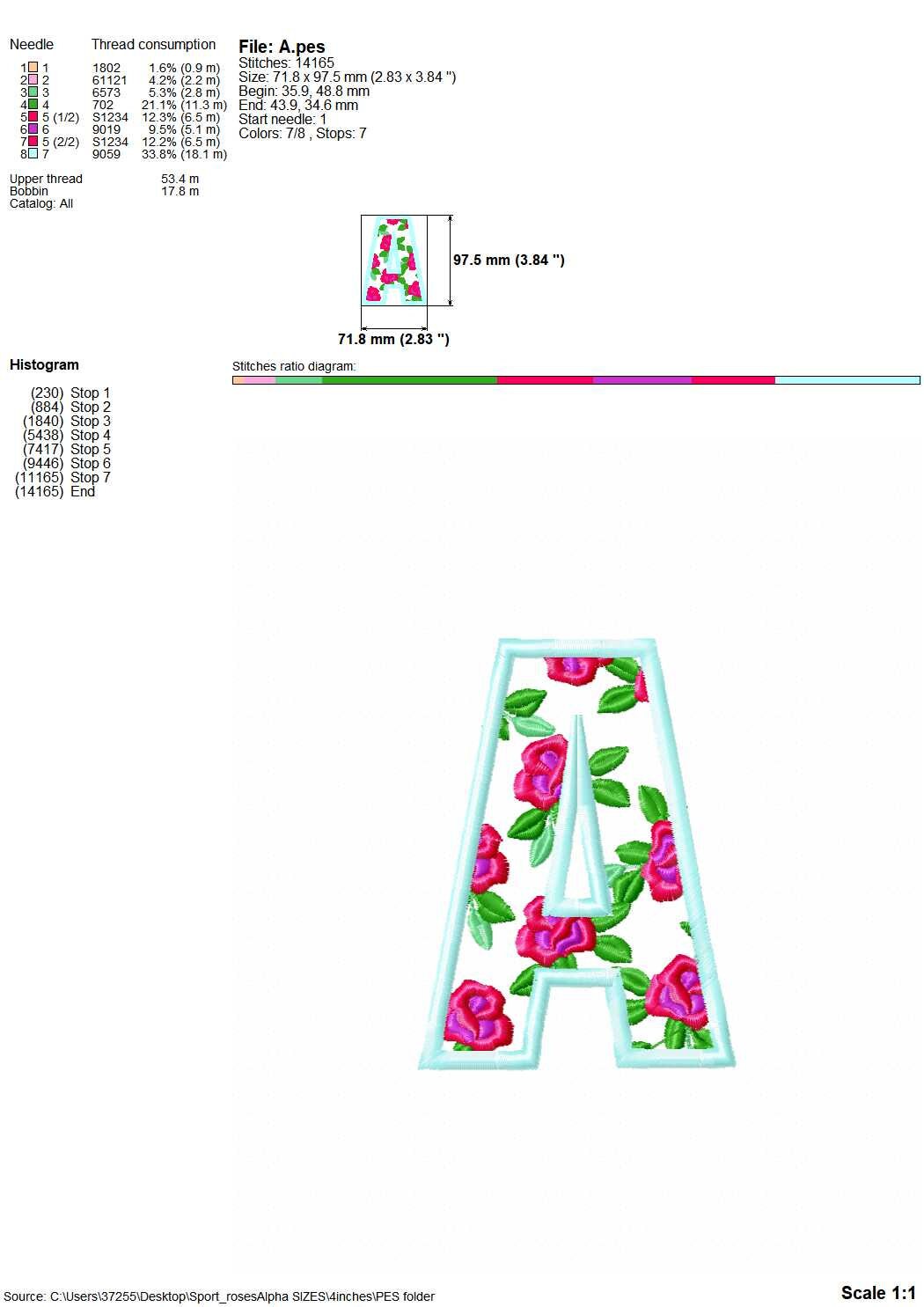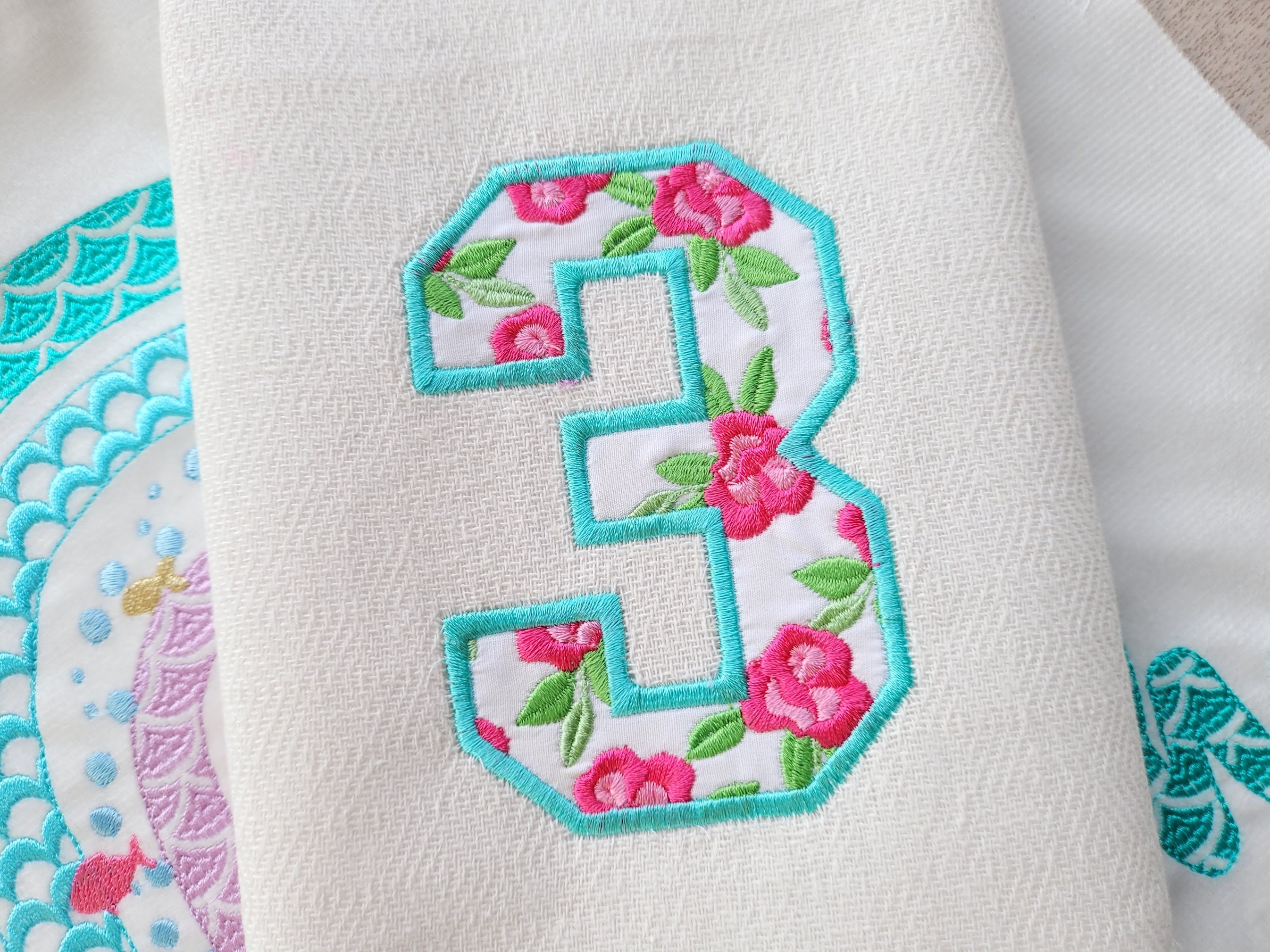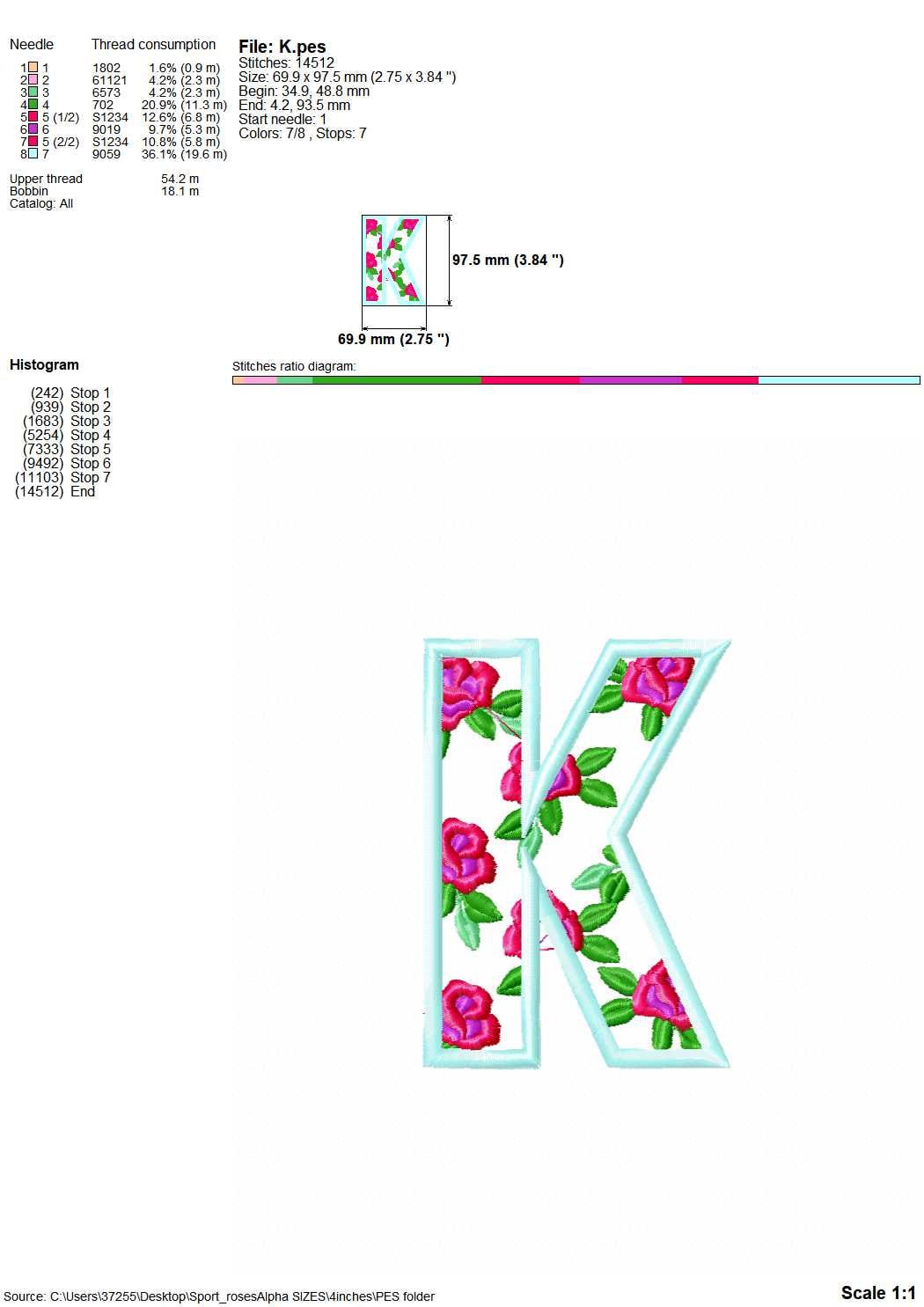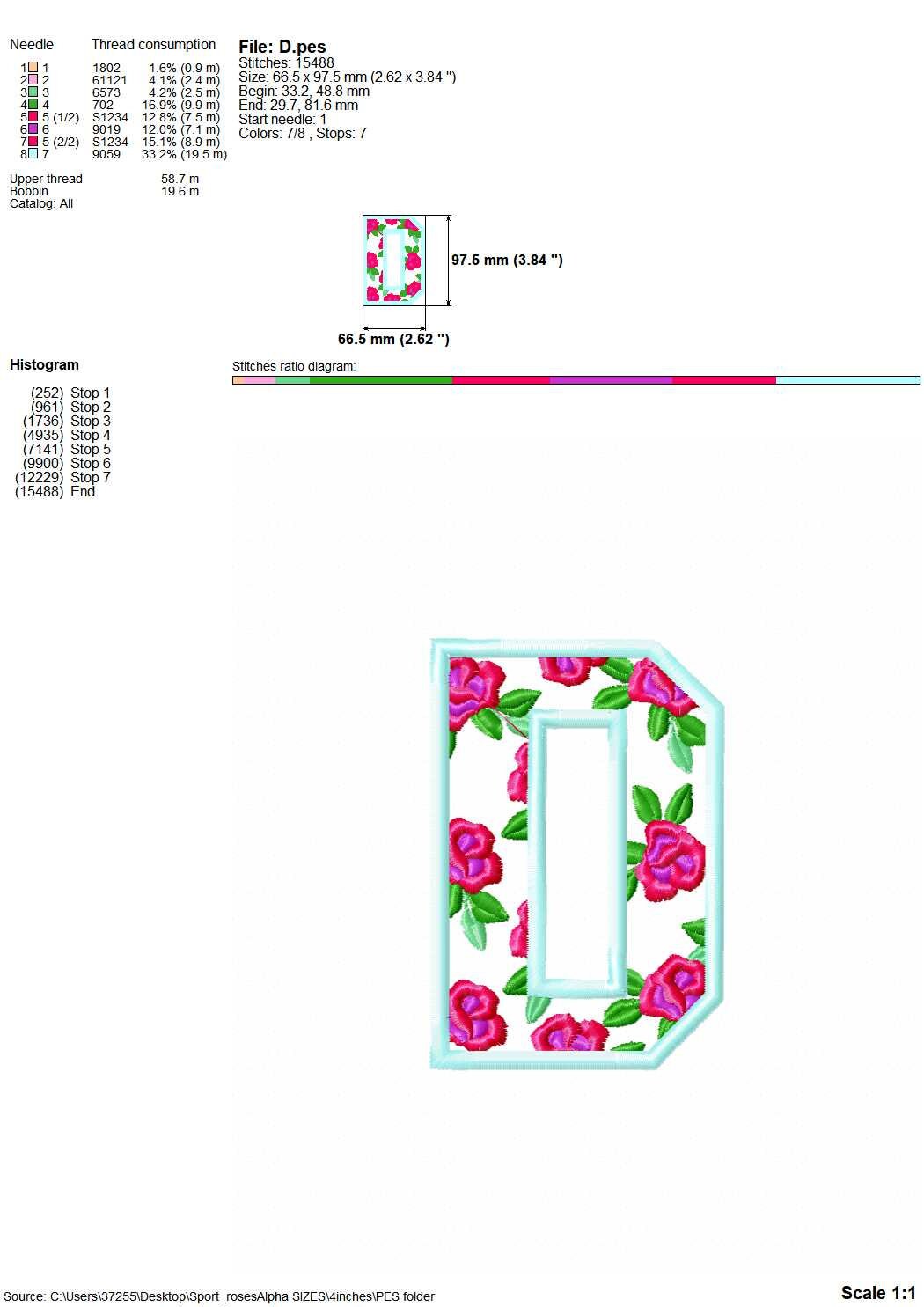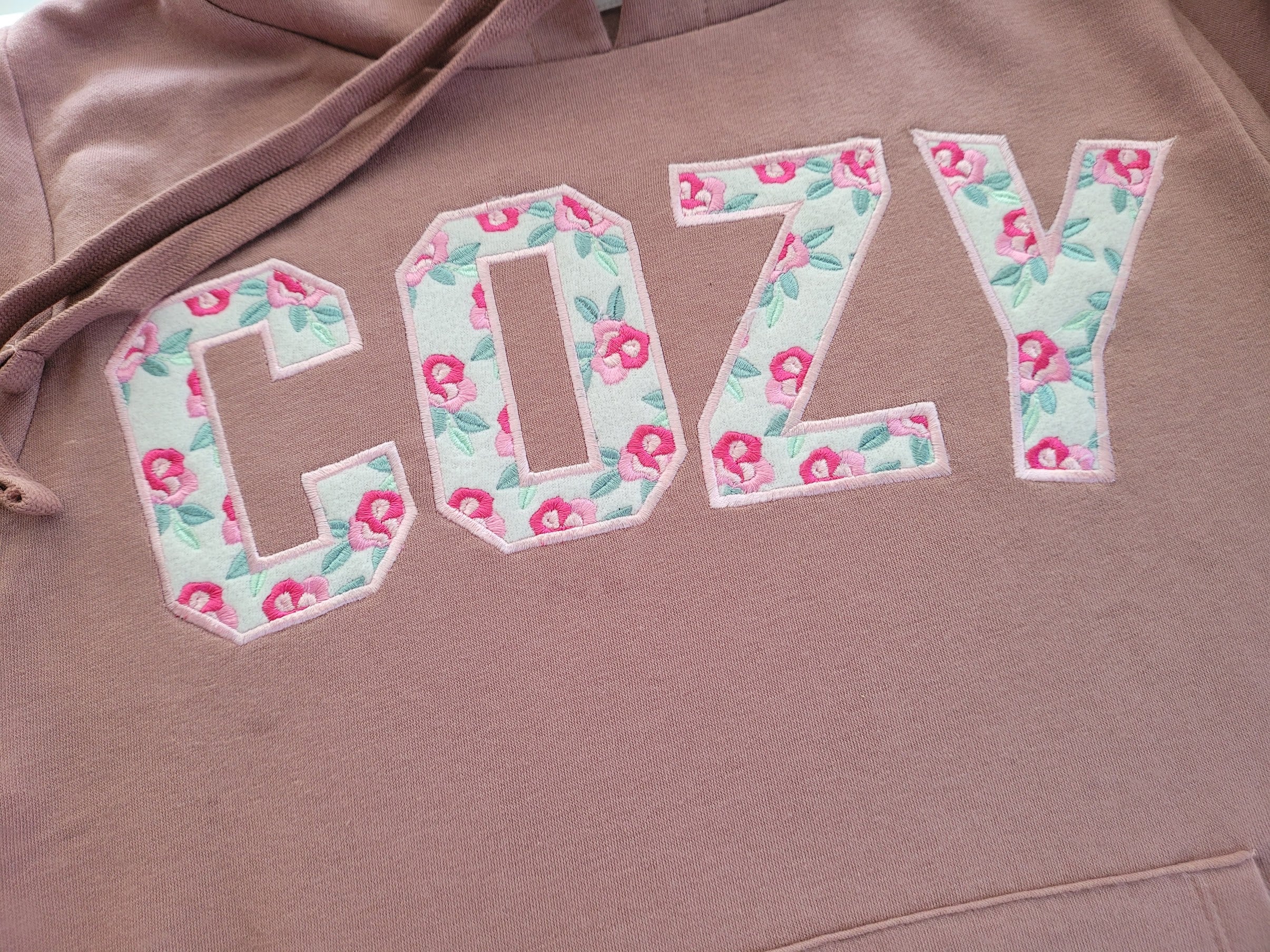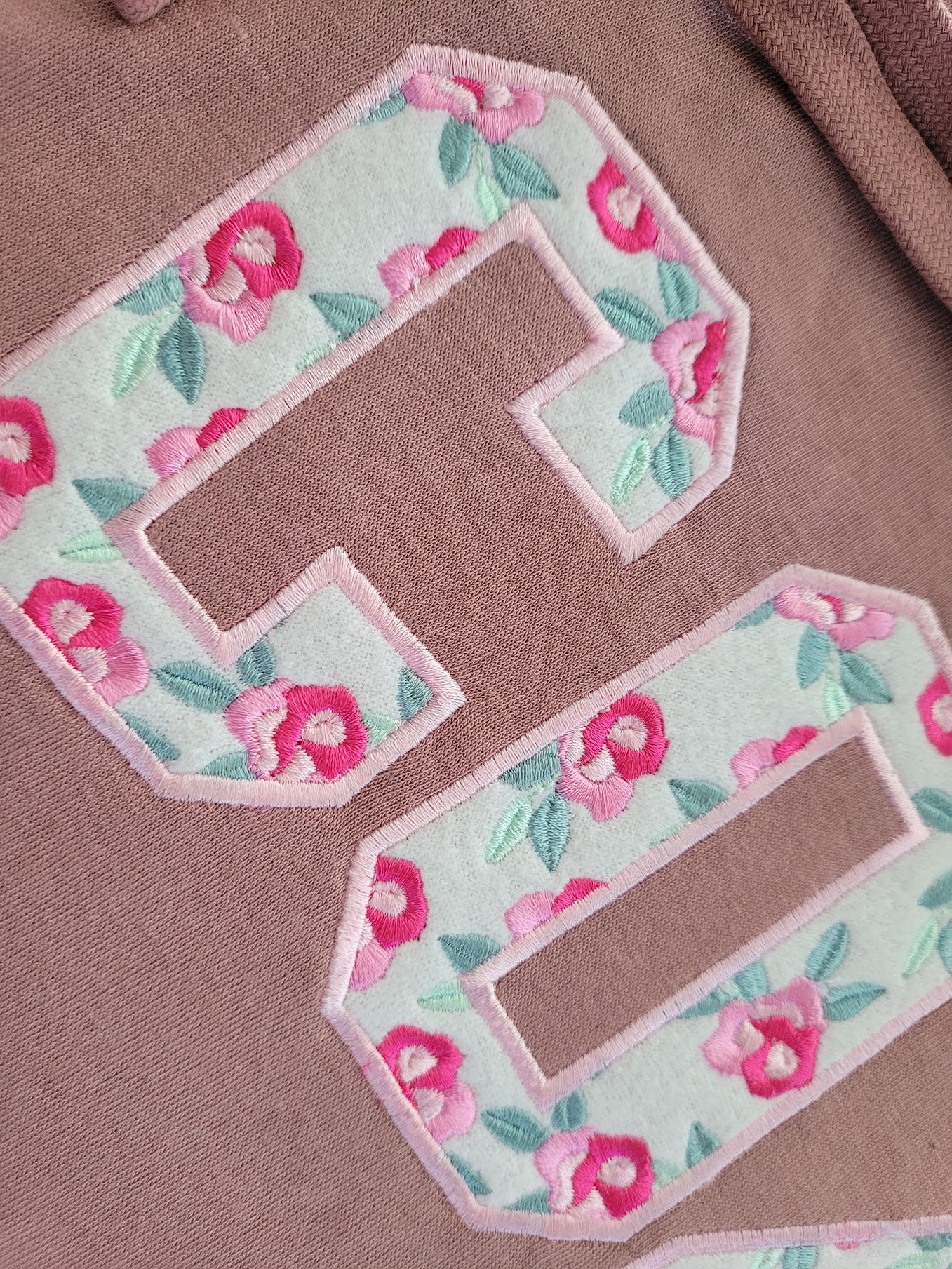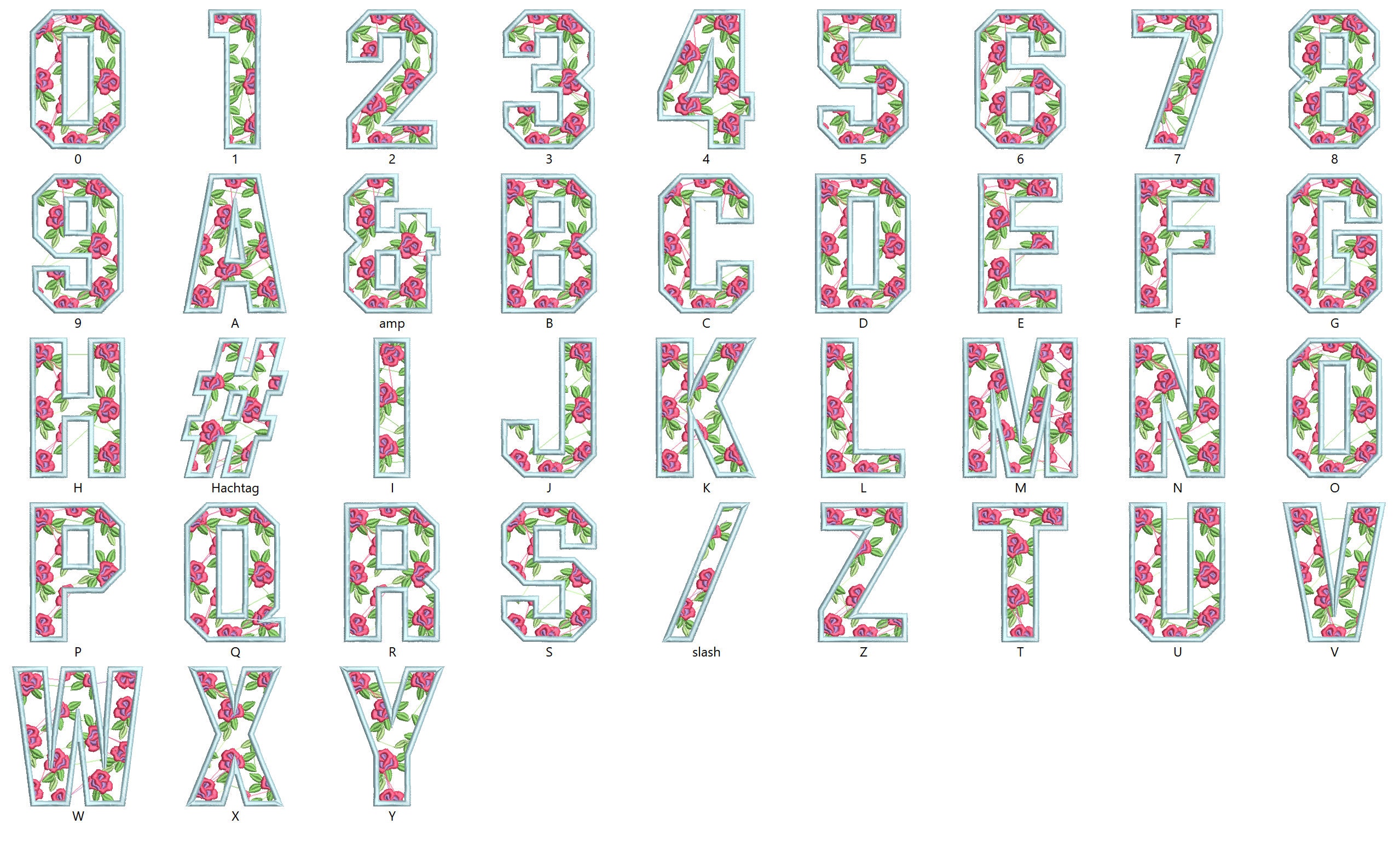
Girl Sport Rose Lace Font whole alphabet A-Z and numbers awesome girly lacy letters applique machine embroidery designs in many sizes, BX included
Uppercase A-Z and numbers.
The flowers are part of the design.